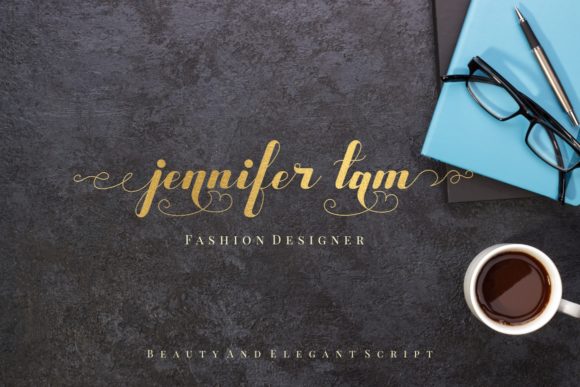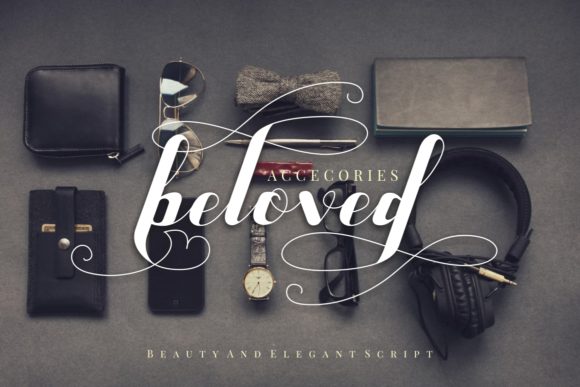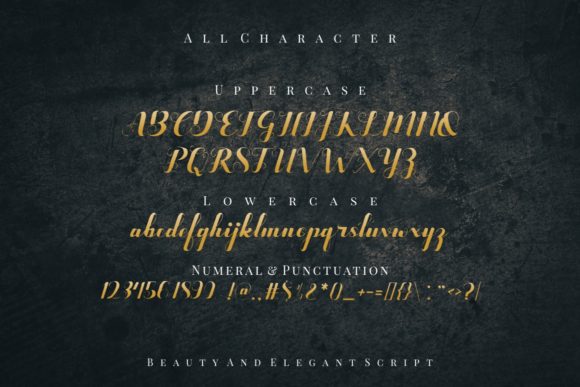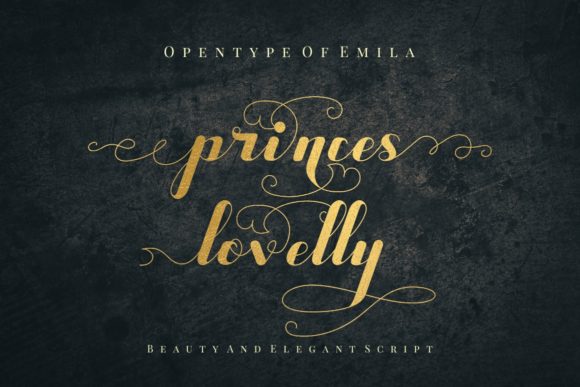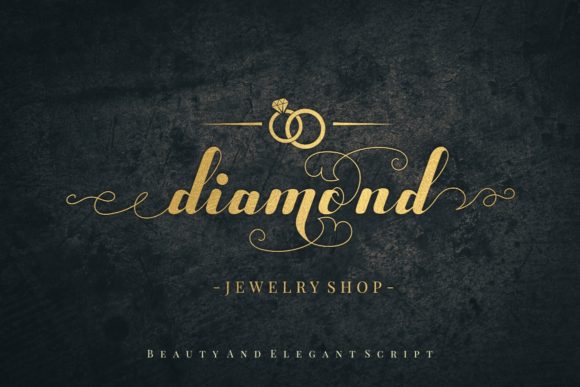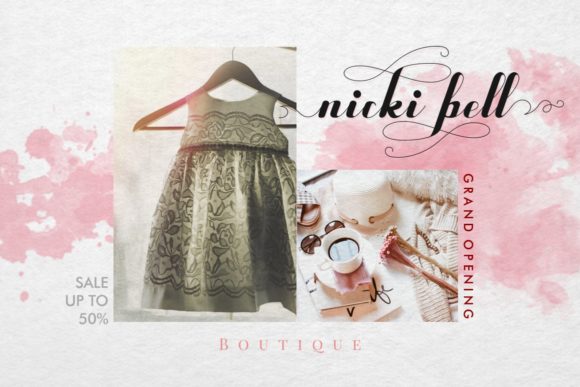
Introducing Emila Font: Elevate Your Designs with Elegance
Are you on the hunt for a font that exudes elegance and sophistication? Look no further than Emila Font, a stunning handwritten font that is sure to capture your heart. With its flowing lines, distinct style, and timeless charm, Emila is the perfect addition to your font collection. In this article, we’ll dive into the features and benefits of Emila Font, and explore how you can use it to create breathtaking designs.
The Beauty of Emila Font
Emila Font is a masterpiece of handwritten typography, boasting an elegant touch that sets it apart from other fonts. Its incredibly distinct and timeless style makes it perfect for a wide range of projects, from branding and advertising to packaging and digital design. Whether you’re a seasoned designer or a crafty DIY enthusiast, Emila Font is sure to inspire your creativity.
Key Features of Emila Font
- PUA Encoding: Emila Font is PUA (Private Use Area) encoded, which means you can access all of the glyphs and swashes with ease. This feature allows you to unlock the full potential of the font and experiment with different combinations to create unique designs.
- Varying Baseline: Emila Font features a varying baseline, which gives it a natural, handwritten feel. This subtle detail adds a touch of authenticity to your designs and sets them apart from more uniform fonts.
- Smooth Lines: The font’s smooth lines and curves create a sense of fluidity and movement, making it perfect for designs that require a sense of dynamism and energy.
- Gorgeous Glyphs: Emila Font comes with a range of gorgeous glyphs, including stunning alternates that allow you to add an extra layer of creativity to your designs.
Why Choose Emila Font?
So why should you choose Emila Font for your next project? Here are just a few reasons:
- Unique Style: Emila Font has a unique style that sets it apart from other fonts. Its elegant touch and flowing lines make it perfect for designs that require a touch of sophistication.
- Versatility: Emila Font is incredibly versatile, making it suitable for a wide range of projects, from logos and branding to social media graphics and digital design.
- Easy to Use: With its PUA encoding and user-friendly design, Emila Font is easy to use, even for those without extensive design experience.
How to Use Emila Font
Need some inspiration for your next project? Here are a few ideas to get you started:
- Branding and Logo Design: Use Emila Font to create a stunning logo or brand identity that exudes elegance and sophistication.
- Wedding and Event Design: Emila Font is perfect for wedding and event design, adding a touch of romance and whimsy to your creations.
- Digital Design: Use Emila Font to create stunning digital designs, such as social media graphics, blog headers, and more.
Emila Font is a truly exceptional handwritten font that is sure to capture your heart. With its elegant touch, distinct style, and timeless charm, it’s the perfect addition to your font collection. Whether you’re a designer, crafty DIY enthusiast, or simply someone who appreciates beautiful typography, Emila Font is a must-have. So why wait? Download Emila Font today and start creating spectacular designs that showcase its full potential!